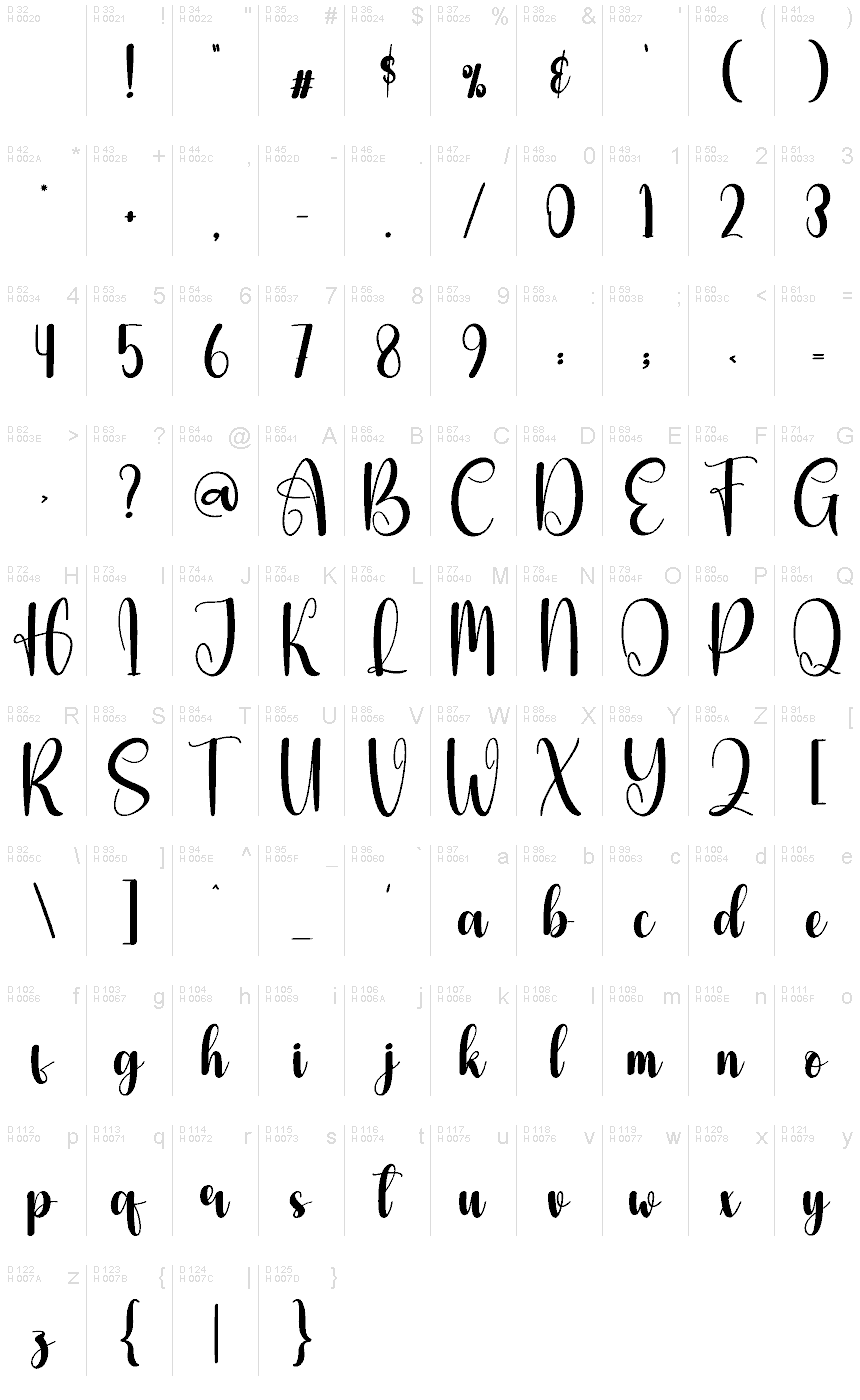
Ghosted House
Ghosted House font is a free handwritten font designed with the final vision of leaving readers speechless. Inspired by elegant vintage elements, it carries an ornate and expressive style which makes it perfect for contemporary uses in stationaries or branding designs.
Dive deeper and use this flourished artistic typeface in invitations, logo creation, cute packaging designs, mug tags, business cards, albums covers, book covers, inspirational quotes or various poster designs.